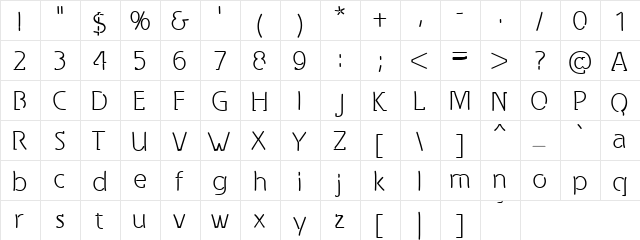
Spongy Regular
Design Context for Spongy Typeface
Spongy takes a measured approach to typography — its balanced proportions and neutral character make it a reliable workhorse for both digital and print work.